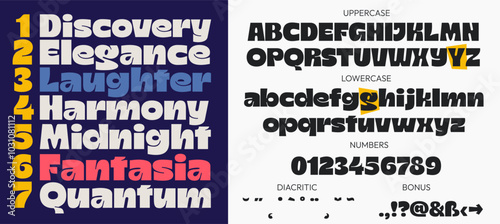
Abstract groovy alphabetic font. Sans. Minimalistic modern urban fonts for logos, brands, etc. High-quality typographic font in upper and lower case, with numbers and diacritics. Vector illustration